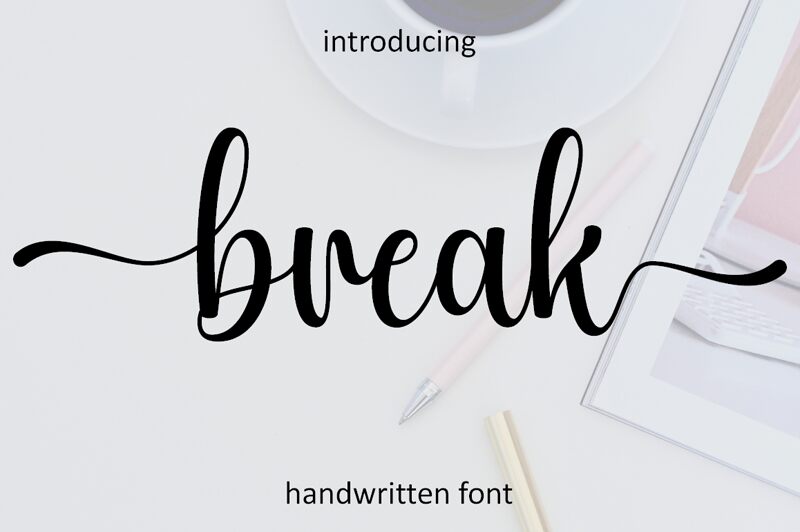
Break
Break, crafted by Hardiboy Design, embodies a handwritten style that exudes personality and warmth. With its fluid strokes and natural variation in thickness, this font creates an intimate connection reminiscent of personal notes and correspondence. The elegant curves and slight slant give it a dynamic rhythm that's both engaging and inviting.
Its aesthetic charm lends itself beautifully to applications where a touch of humanity is desired—think wedding invitations, boutique branding, or any project seeking to convey authenticity through design. Break's approachable nature makes it perfect for storytelling in editorial pieces or adding character to casual apparel designs. Embrace Break for projects that require a genuine touch with its distinctively human flair.